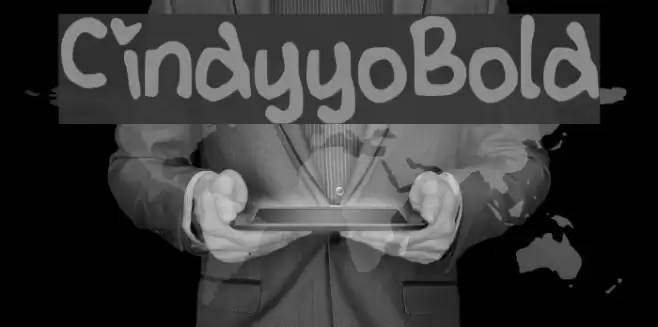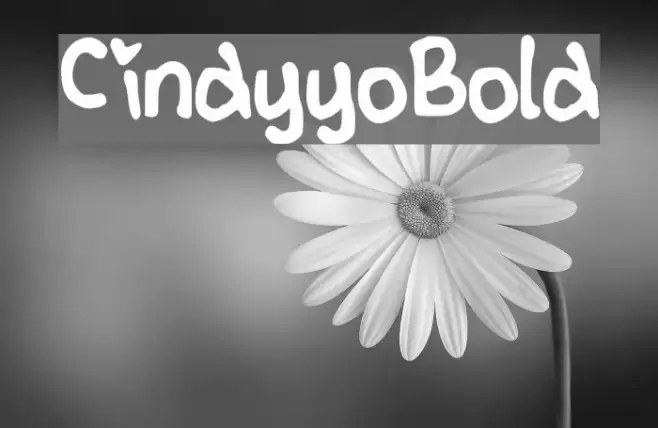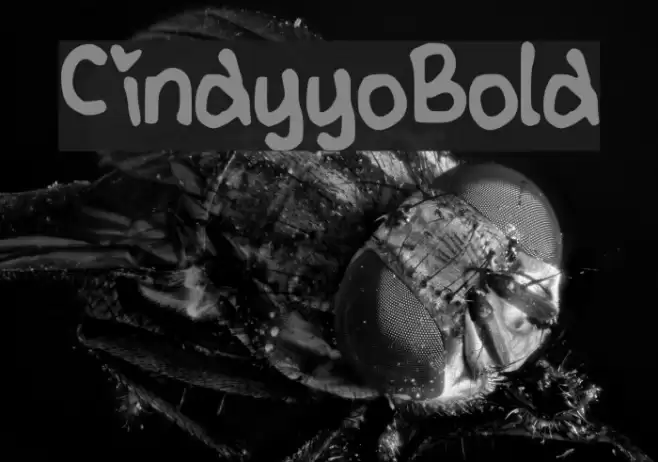
CindyyoBold Font
CindyyoBold Description
This playful and bold font features a handwritten style with a casual and friendly appearance. The characters are rounded and slightly irregular, giving them a whimsical and approachable feel. The uppercase and lowercase letters maintain a consistent style, with a noticeable thickness that adds to the font's boldness. The numbers and special characters are equally expressive, with a unique charm that complements the overall design. This font is ideal for projects that require a personal touch, such as children's books, greeting cards, or playful branding.
A bold, playful handwritten font with a whimsical and friendly style from Handwritten fonts.
- Proposed Projects: Children's books, greeting cards, playful branding, posters, and casual invitations.
- Overall Style: Playful, Casual, Whimsical